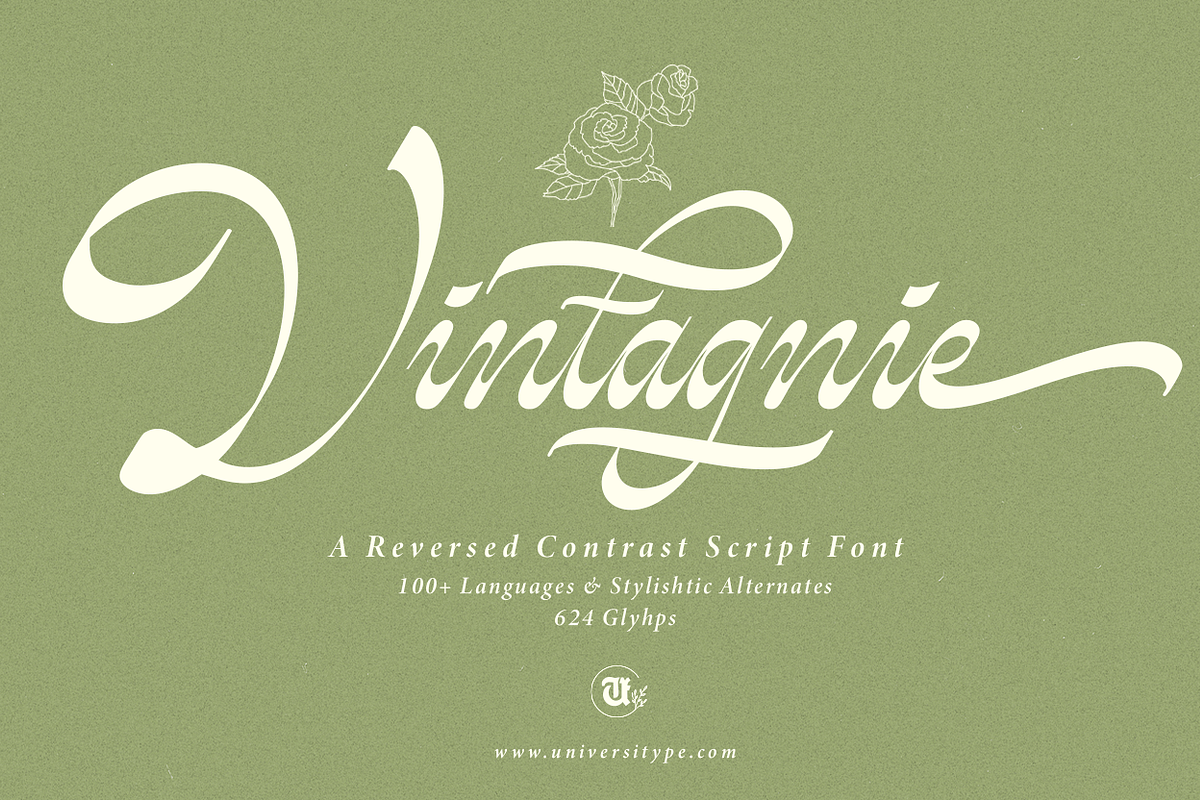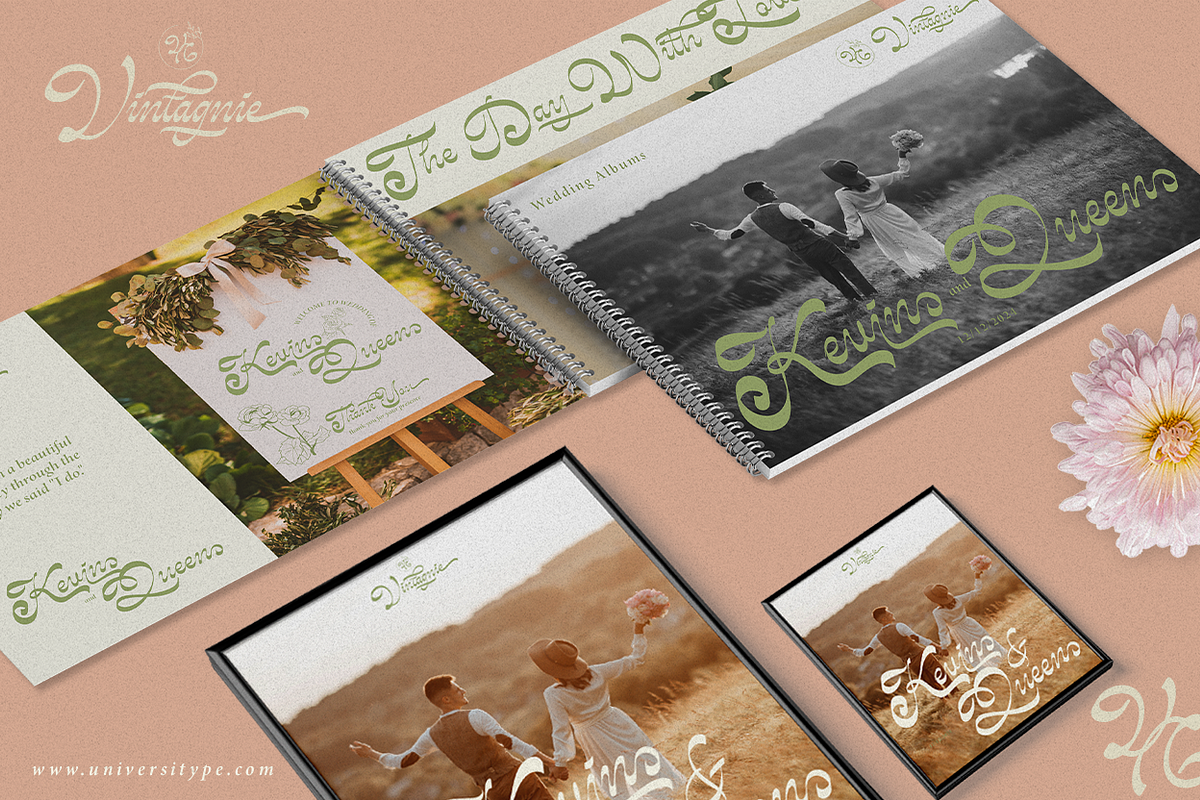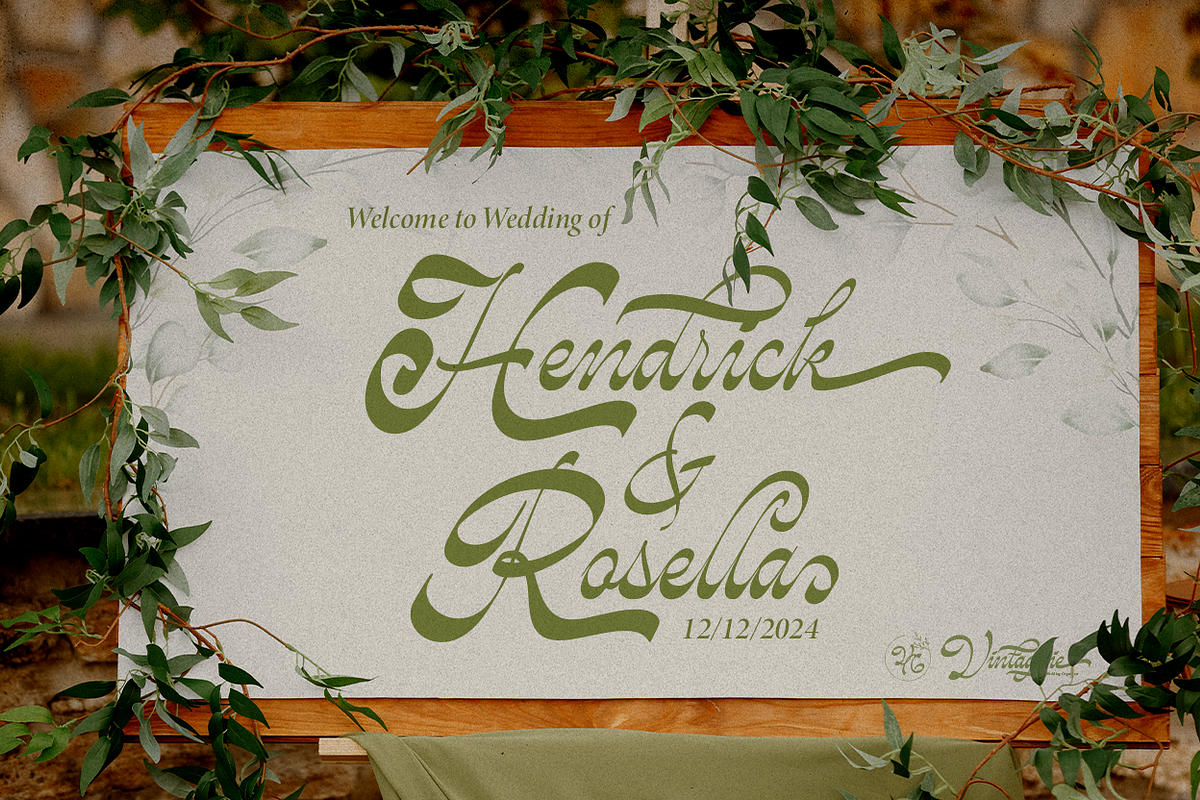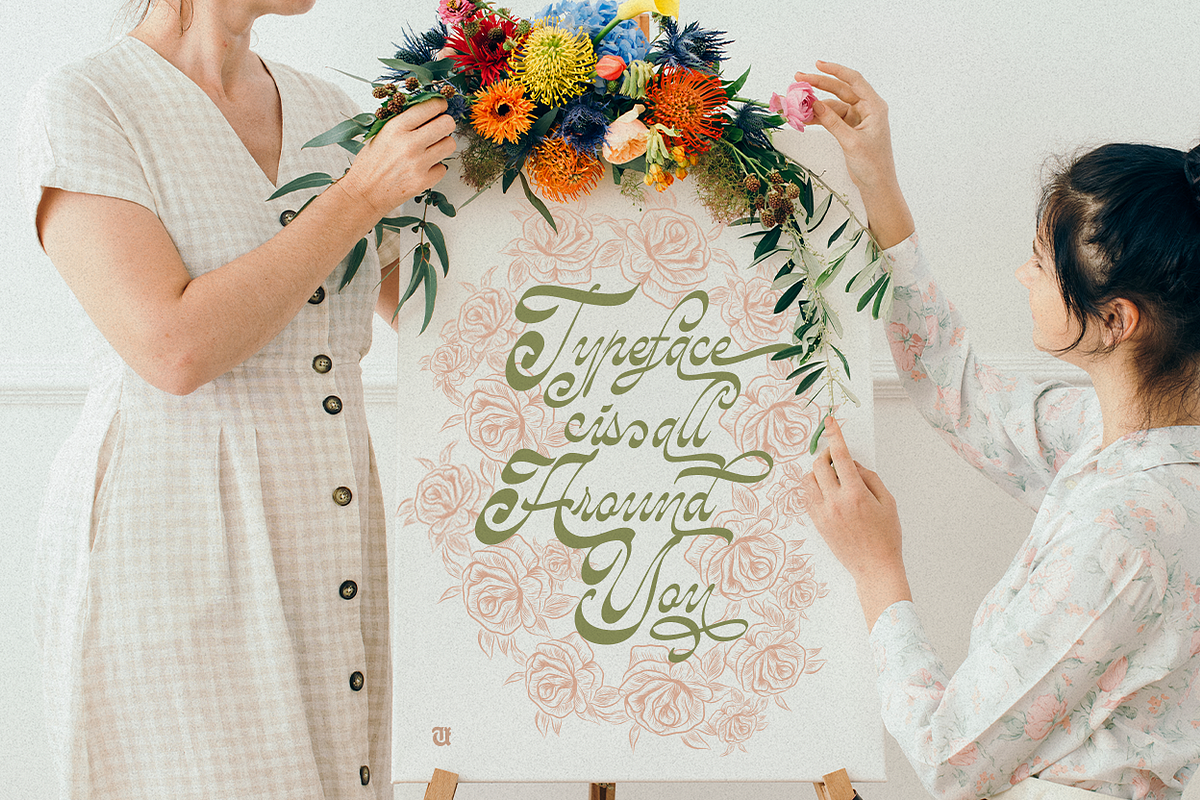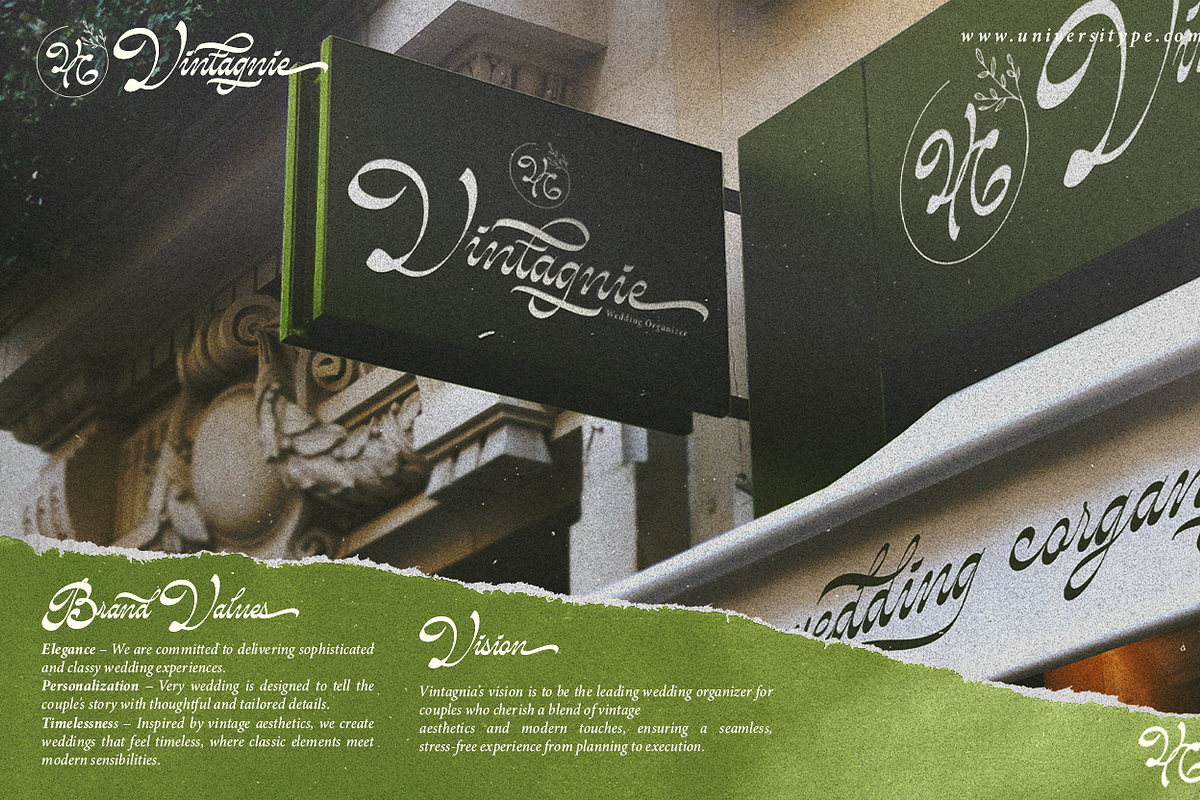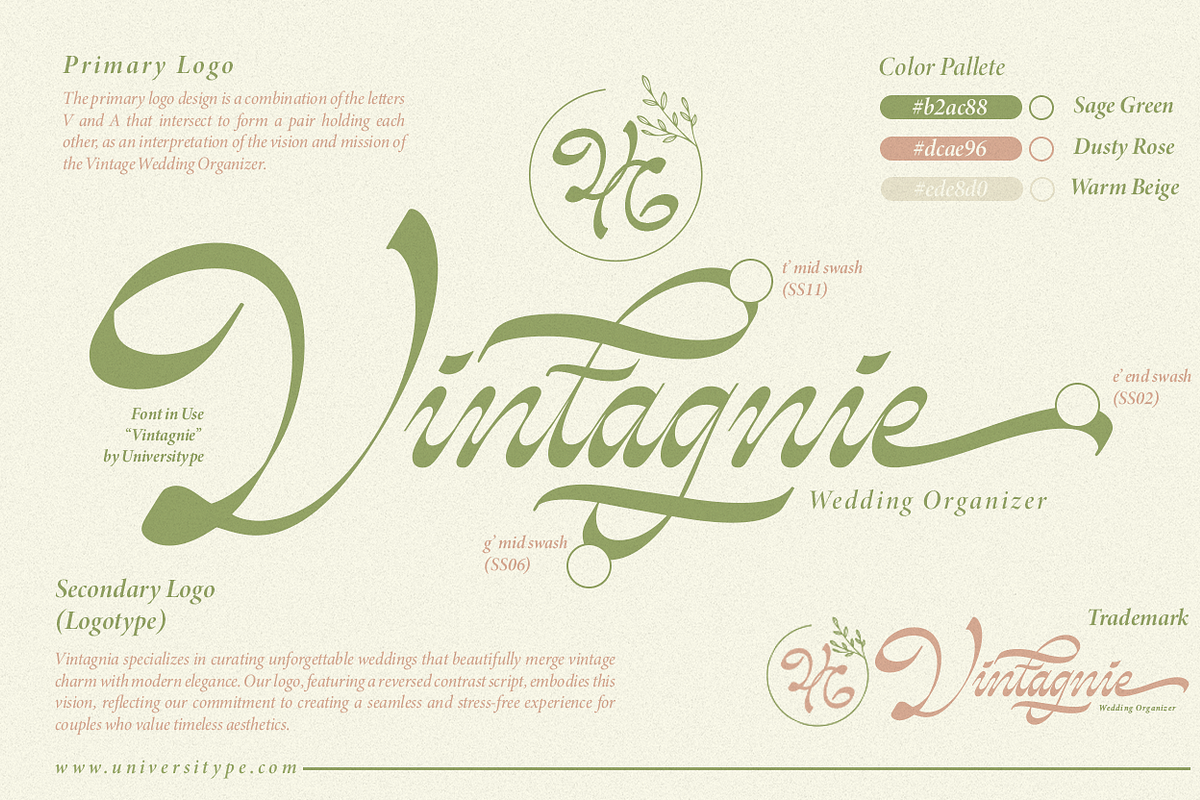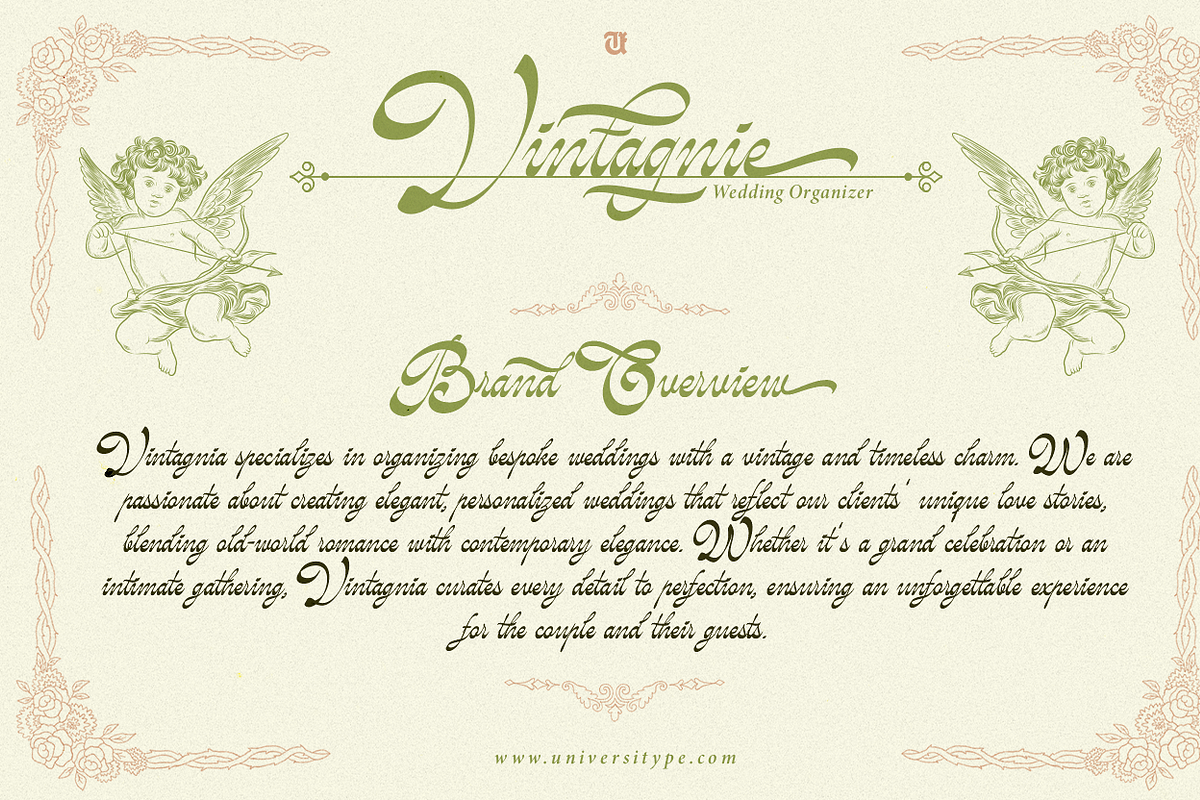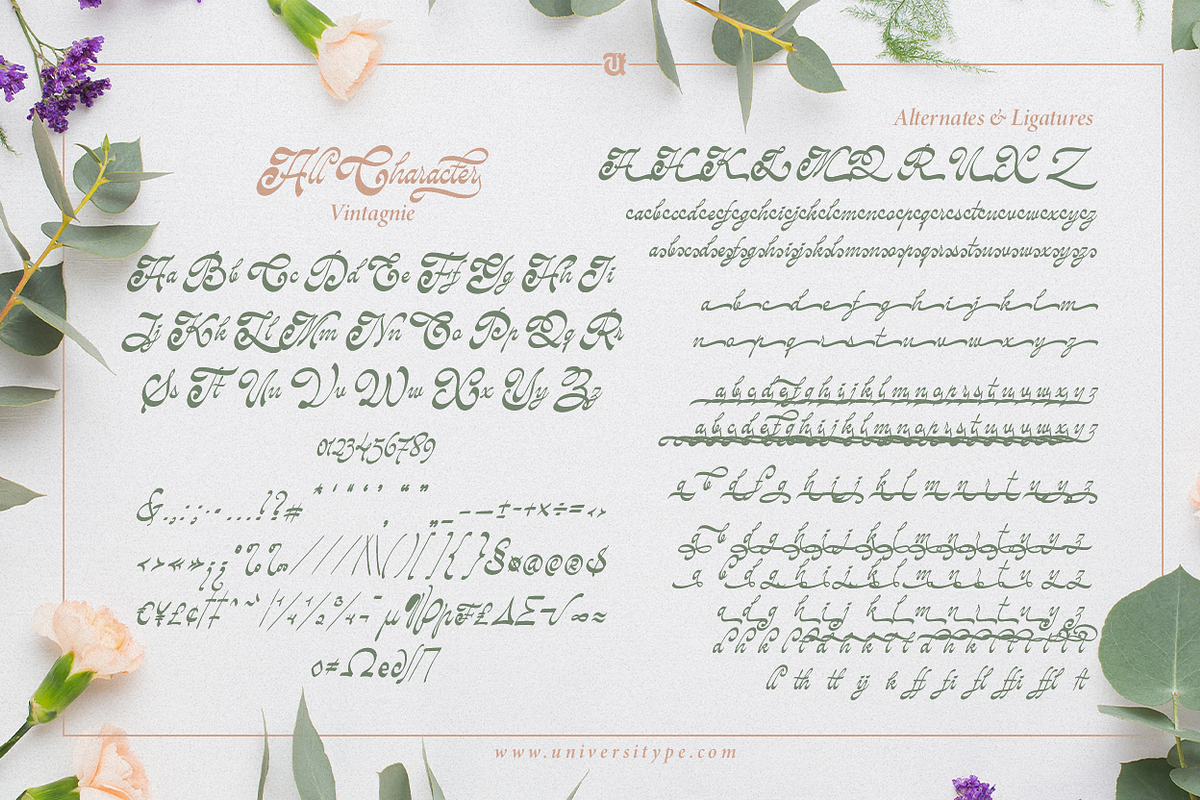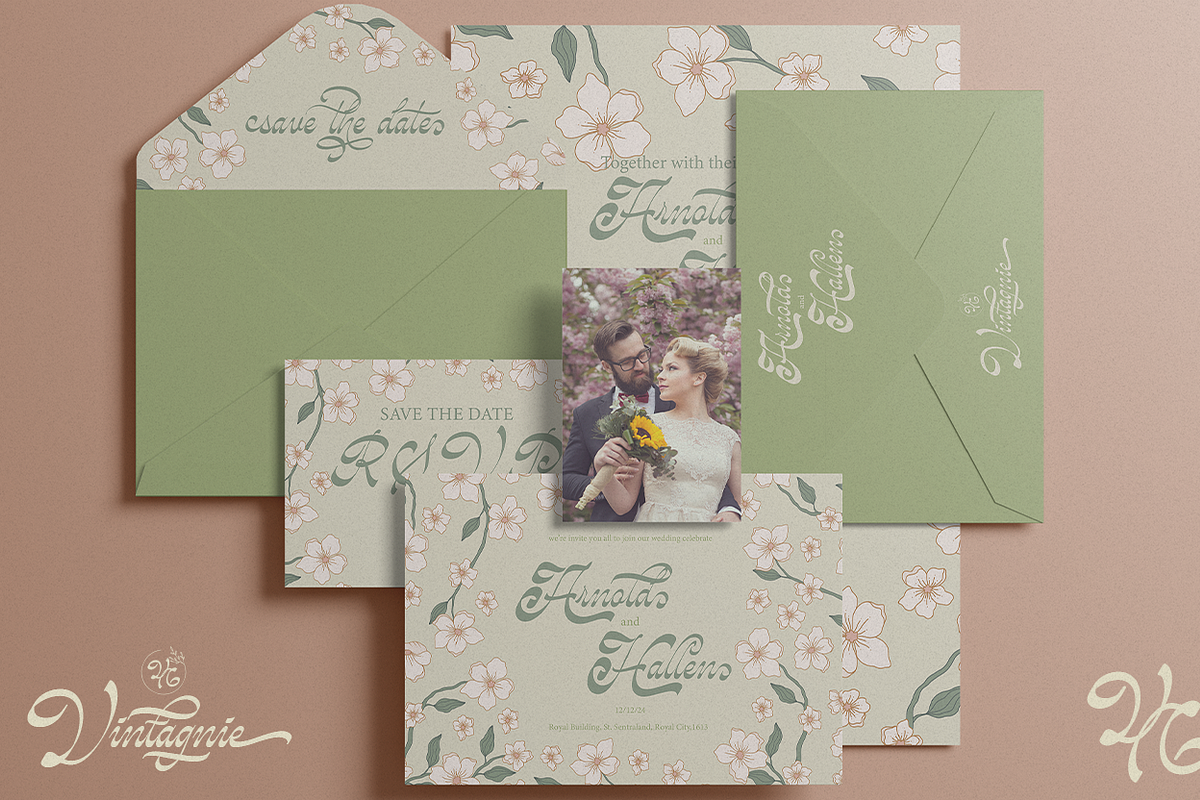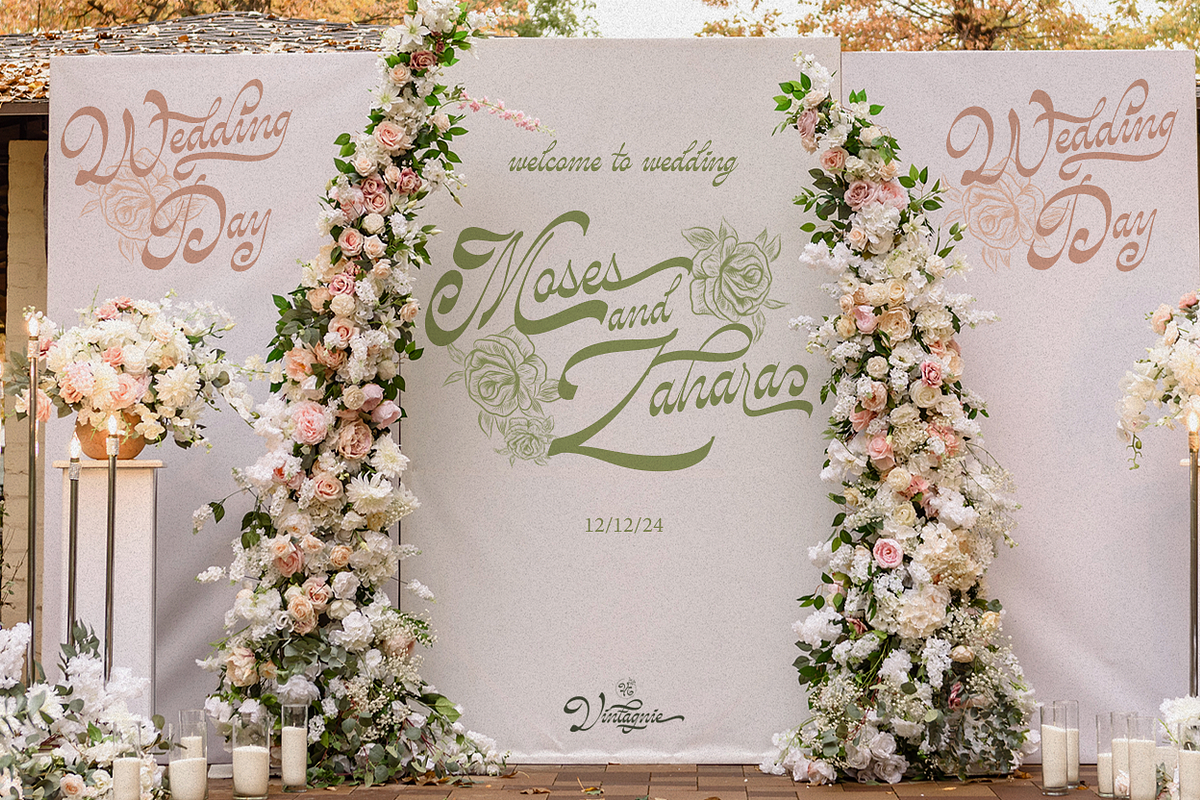
UT Vintagnie - A Wedding Script Font
UT Vintagnie: A Timeless Script Font for Elegant Typography and Nostalgic Design When it comes to adding a touch of timeless beauty and sophistication to your designs, UT Vintagnie is the ultimate choice. This vintage script font masterfully blends vintage charm with elegant typography, offering graceful curves, flowing strokes, and a versatility that will breathe life into any creative project.
Elegant Typography That Evokes Nostalgia At the heart of UT Vintagnie is its ability to evoke a sense of nostalgia. The flowing lines and intricate details of this font take inspiration from classic lettering styles, creating a nostalgic design that transports you to a time of elegance and refinement. The font’s stylish lettering and romantic flourishes offer a seamless balance between old-world charm and modern sophistication, making it the perfect choice for designers seeking a classic touch.
Versatility Meets Stylish Lettering What sets UT Vintagnie apart is its wide range of alternates, ligatures, and stylistic options, giving designers endless possibilities for customization. Whether you’re creating branding for a luxury product, crafting personalized wedding invitations, or designing an editorial layout, UT Vintagnie’s stylish lettering adds character to every letterform, ensuring that your work stands out.
The romantic essence of this romantic font is embedded in every detail, from its swashes and loops to its smooth curves, allowing you to add a delicate yet bold statement to your designs. Whether your project needs a sophisticated and luxurious feel or a touch of nostalgic beauty, UT Vintagnie offers the versatility to bring your vision to life.